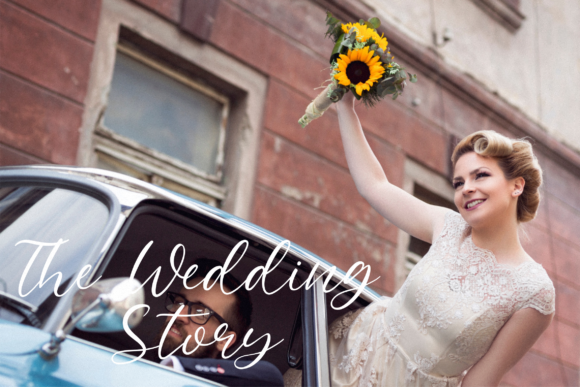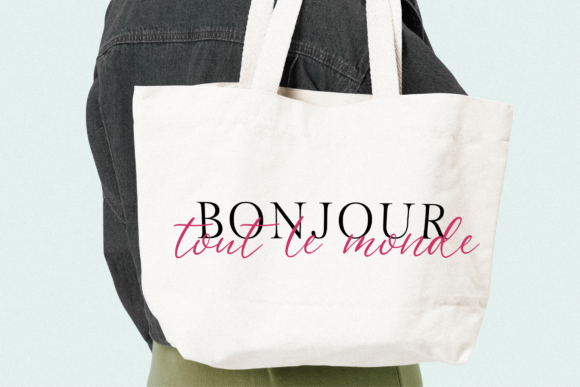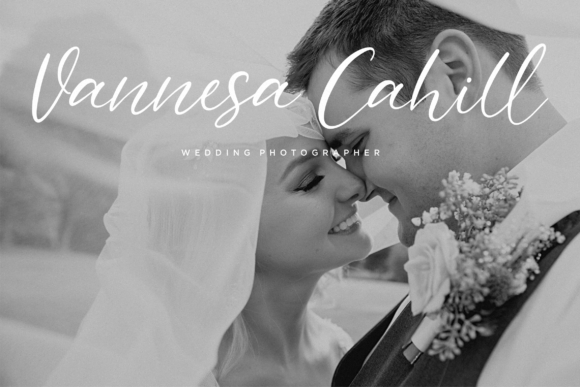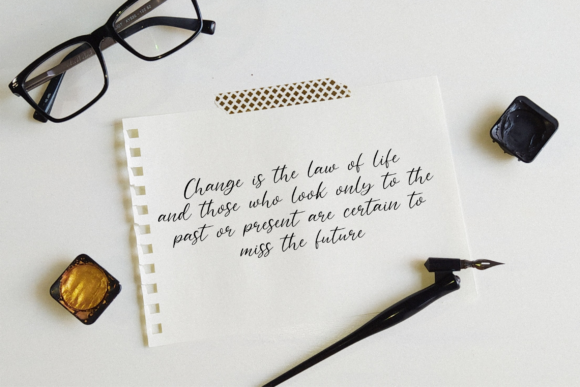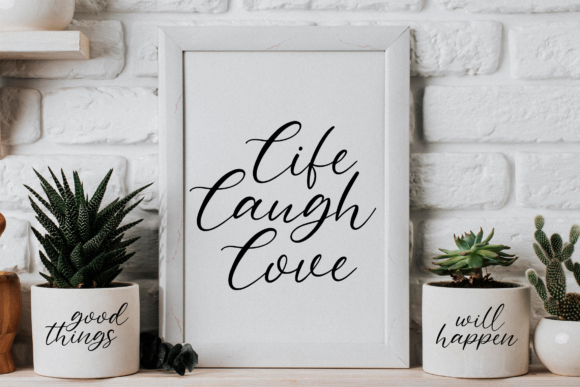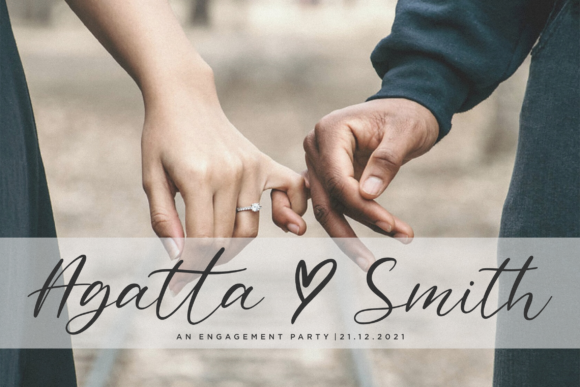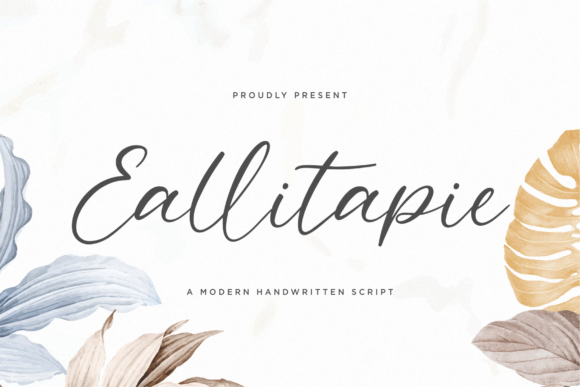
Eallitapie Font: Elevate Your Designs with Elegance and Personality
In the world of typography, fonts play a crucial role in conveying the tone and aesthetic of a design. For crafters, designers, and DIY enthusiasts, finding the perfect font can be a game-changer. This is where Eallitapie Font comes into play – a unique and elegant handwritten font that adds a touch of sophistication and personality to various designs.
What Makes Eallitapie Font Special?
Eallitapie Font is a one-of-a-kind, handwritten typeface that exudes elegance and charm. Its distinctive style makes it an ideal choice for designs that require a personal touch, such as:
- Wedding invitations and thank you cards
- Wedding decorations and signage
- Greeting cards for special occasions
- Stationery and paper goods
With Eallitapie Font, you can add a dash of whimsy and romance to your designs, making them truly unforgettable.
Key Features of Eallitapie Font
So, what sets Eallitapie Font apart from other fonts? Here are some of its key features:
- Unique and Handwritten: Eallitapie Font is a genuine handwritten font, crafted with love and care to ensure a personal touch.
- Elegant and Refined: The font boasts an elegant and refined style, perfect for designs that require sophistication.
- Versatile: Eallitapie Font can be used on a variety of designs, from digital files to print materials.
- Easy to Read: Despite its elegant style, Eallitapie Font remains easy to read, making it perfect for body text and headlines.
How to Use Eallitapie Font in Your Designs
Using Eallitapie Font in your designs is straightforward. Here are some tips to get you started:
- Pair it with Other Fonts: Combine Eallitapie Font with other fonts to create a unique and visually appealing design.
- Play with Sizes: Use Eallitapie Font in various sizes to create visual hierarchy and emphasis.
- Add Decorations: Consider adding decorations, such as flourishes or graphics, to enhance your design.
Benefits of Using Eallitapie Font
By incorporating Eallitapie Font into your designs, you can enjoy several benefits:
- Stand Out from the Crowd: Eallitapie Font is a unique and distinctive typeface that will set your designs apart.
- Convey Emotion and Personality: The font’s elegant and handwritten style allows you to convey emotion and personality in your designs.
- Save Time: With Eallitapie Font, you can create stunning designs quickly and efficiently.
- Enhance Your Brand: Using Eallitapie Font consistently across your designs can help establish a strong brand identity.
Eallitapie Font is a beautiful and elegant handwritten font that can elevate your designs with its unique and refined style. Whether you’re a designer, crafter, or DIY enthusiast, this font is perfect for adding a personal touch to your projects. With its versatility, ease of use, and distinctive style, Eallitapie Font is sure to become a favorite in your design arsenal.